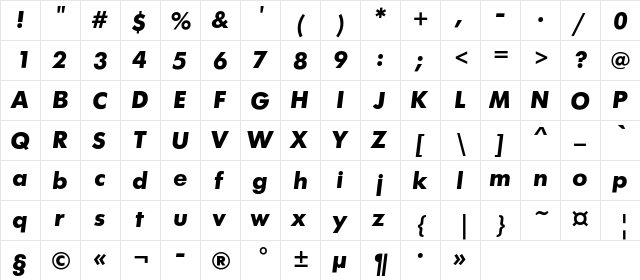
FuturisC Bold Italic Font Preview
Design Context for FuturisC Typeface
FuturisC channels digital-age aesthetics through its sharp, structured letterforms — ideal for brands that want to signal innovation. The dynamic lean of this cut emphasises speed and emphasis in any layout. The heavy weight commands attention and anchors typographic hierarchies.